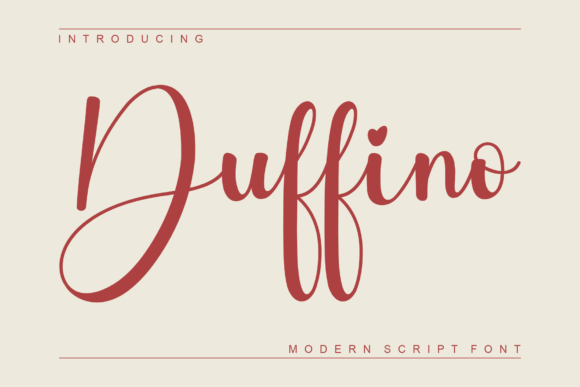
Unlock the Whimsy in Your Designs with Duffino Font
There’s nothing quite like the thrill of staring at a blank canvas, eager to bring a new idea to life. You’ve got a concept, a vision, but something’s missing – the perfect font to tie it all together. That’s where the enchanting Duffino Font comes in, a sweet and whimsical script font designed to add a touch of luxury to any design project.
Characterized by flowing, thin lines and characters that seem to dance along the baseline, Duffino Font is more than just a pretty face. It’s a valuable tool for designers looking to elevate their work and make a lasting impression. Whether you’re working on a wedding invitation, a branding project, or a social media campaign, this font is sure to bring a unique spark to your design.
Duffino Font Key Features
- Font Style: Script, Calligraphy
- Unique Characteristics: Hand-drawn design, elegant and sophisticated feel, perfect for formal invitations, wedding stationery, and luxury branding
- Language Support: Multilingual support, including Latin, Cyrillic, and Greek alphabets
Duffino Font Review
Overall, I’m quite pleased with the Duffino Font, but it’s not without its quirks. Here’s a breakdown of what I like and dislike.
- The Duffino Font has a unique, whimsical charm that’s perfect for creative projects.
- The font is highly legible, even at smaller font sizes.
- The font family includes a range of weights and styles, making it versatile for various design applications.
- The font’s playfulness can come across as childish or immature in some contexts.
- The font lacks a clear, professional feel, which may not be suitable for corporate or formal projects.
- The font’s character set is limited, which may cause issues with internationalization or multilingual projects.
While the Duffino Font has its limitations, it’s a great choice for projects that require a touch of whimsy and playfulness. With its unique charm and high legibility, it’s a solid addition to any designer’s toolkit. However, it’s essential to consider the context and audience before using this font to avoid any potential misinterpretations.
Tip: Use Duffino Font for creative and playful designs, such as social media graphics, posters, and flyers.
Tip: Use Duffino Font for creative and artistic designs, such as logos, icons, and graphics.
Tip: Use Duffino Font for creative and professional presentations, reports, and documents.
Duffino Font is ideal for:
- Creative and playful designs
- Artistic and artistic designs
- Professional presentations and reports
- Social media graphics and marketing materials
Alternatives to Duffino Font
Playfair Display is a luxurious, elegant serif font perfect for creating a sophisticated and high-end look. It is ideal for use in magazines, advertising, and luxury branding.
Compared to Duffino Font, Playfair Display is more ornate and formal, making it better suited for formal invitations, wedding invitations, and high-end branding. It is also more readable at larger font sizes.
Lato is a clean, modern sans-serif font that is highly versatile and suitable for a wide range of applications, from body text to headings. It is ideal for use in digital design, branding, and marketing materials.
Compared to Duffino Font, Lato is more minimalist and legible, making it better suited for digital interfaces and large blocks of text. It is also more suitable for modern and tech-related branding.
Great Vibes is a beautiful, elegant script font that is perfect for creating a friendly and approachable look. It is ideal for use in branding, advertising, and marketing materials that require a creative and artistic touch.
Compared to Duffino Font, Great Vibes is more playful and creative, making it better suited for applications where a personal touch is required. It is also more suitable for use in social media and online advertising.